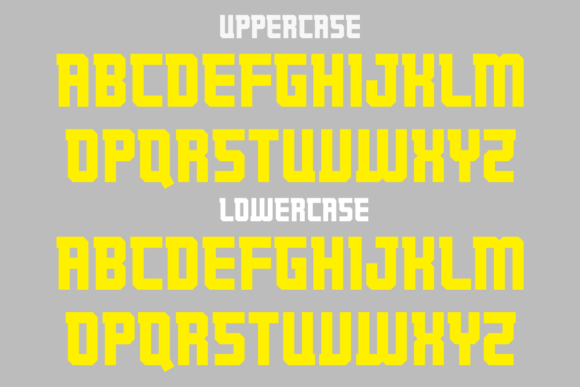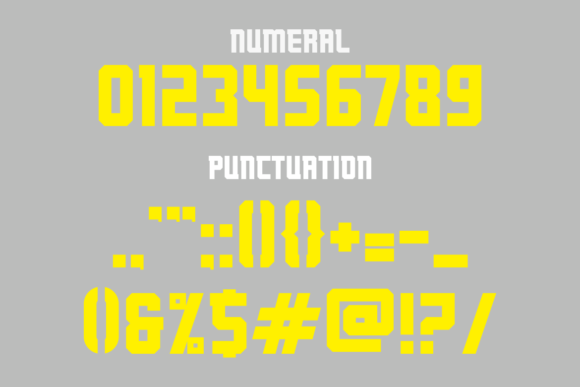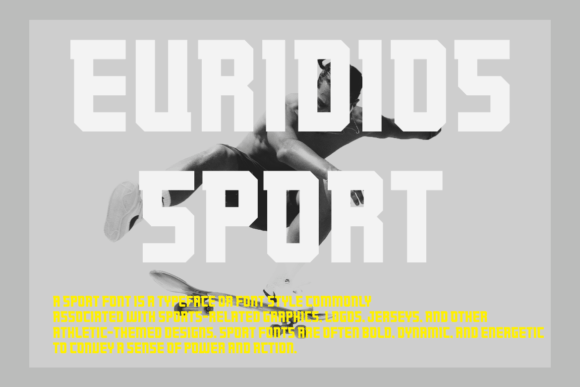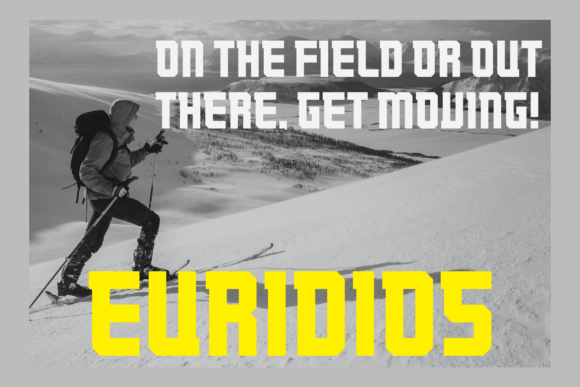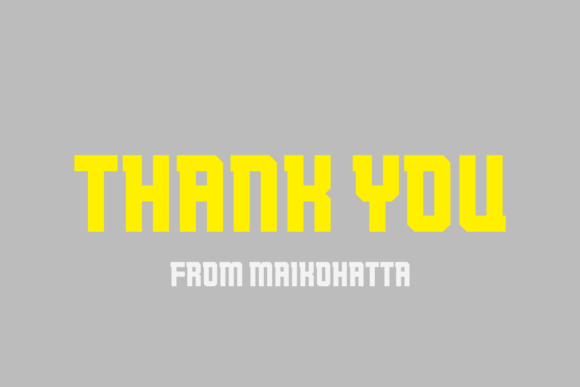
Euridios Font: Unleash the Dynamic Spirit of Sports and Fitness
In the world of sports and fitness, typography plays a crucial role in conveying energy, toughness, and dynamism. A well-designed font can elevate a brand’s identity, making it instantly recognizable and memorable. Introducing Euridios Font, a bold and vibrant typeface specifically crafted to capture the essence of physical activity and sports. In this article, we’ll explore the features, benefits, and usage of Euridios Font, perfect for designers, crafters, and sports enthusiasts alike.
The Inspiration Behind Euridios Font
Euridios Font was designed to reflect the dynamic spirit, energy, and toughness often associated with physical activity and sports. The creators aimed to craft a typeface that embodies the passion, dedication, and competitiveness that drive athletes and sports teams. By combining bold lines, sharp edges, and a modern aesthetic, Euridios Font exudes confidence, strength, and agility.
Key Features of Euridios Font
- Bold and Vibrant Design: Euridios Font boasts a striking appearance, perfect for grabbing attention and making a statement.
- Dynamic and Energetic: The font’s unique design elements convey a sense of movement and energy, ideal for sports-related branding.
- Versatile and Adaptable: Euridios Font can be used in various contexts, from team logos and jerseys to event branding and marketing materials.
- Highly Legible: Despite its bold design, Euridios Font remains highly legible, ensuring clear communication and easy reading.
Usage and Applications of Euridios Font
Euridios Font is an excellent choice for various sports-related applications, including:
- Sports Team Branding: Create a strong, cohesive identity for your team with Euridios Font.
- Sports Company Logos: Elevate your brand’s image with a bold, dynamic typeface that resonates with athletes and sports enthusiasts.
- Major Sporting Events: Make a lasting impression with Euridios Font, perfect for event branding, marketing materials, and merchandise.
- Fitness and Wellness Branding: Convey energy, motivation, and dedication with Euridios Font, ideal for fitness studios, gyms, and wellness centers.
When working with Euridios Font, keep the following tips in mind:
- Experiment with Colors: Combine Euridios Font with bold, vibrant colors to amplify its dynamic spirit.
- Play with Typography: Mix and match Euridios Font with other typefaces to create visually appealing contrasts.
- Consider Context: Adapt Euridios Font to suit various applications, from digital screens to print materials.
Euridios Font is a powerful tool for designers, crafters, and sports enthusiasts looking to create bold, dynamic branding that resonates with athletes and sports fans. With its unique blend of energy, toughness, and modernity, Euridios Font is the perfect choice for sports teams, sports companies, and major sporting events. Unlock the full potential of Euridios Font and unleash the dynamic spirit of sports and fitness in your designs.